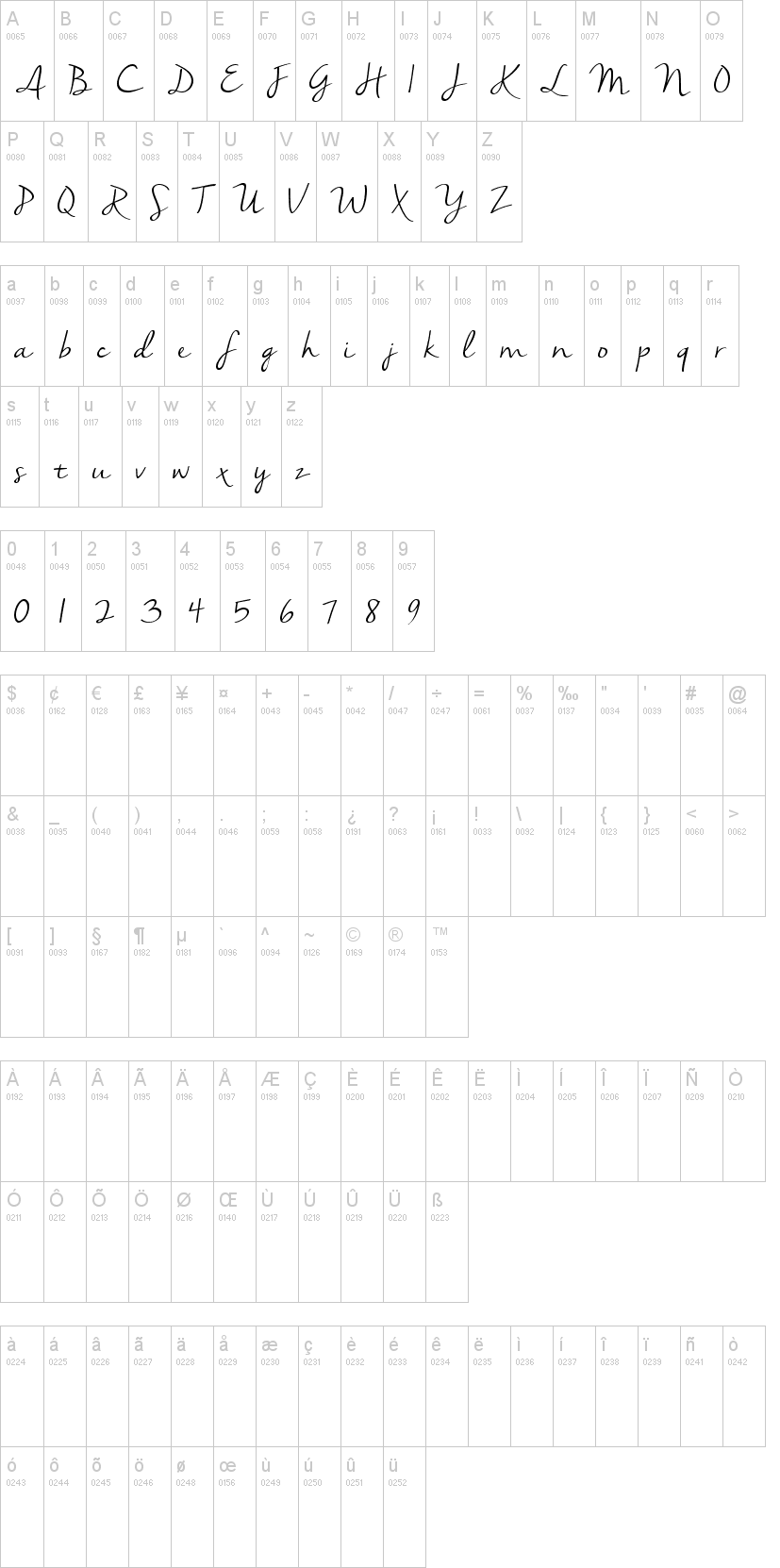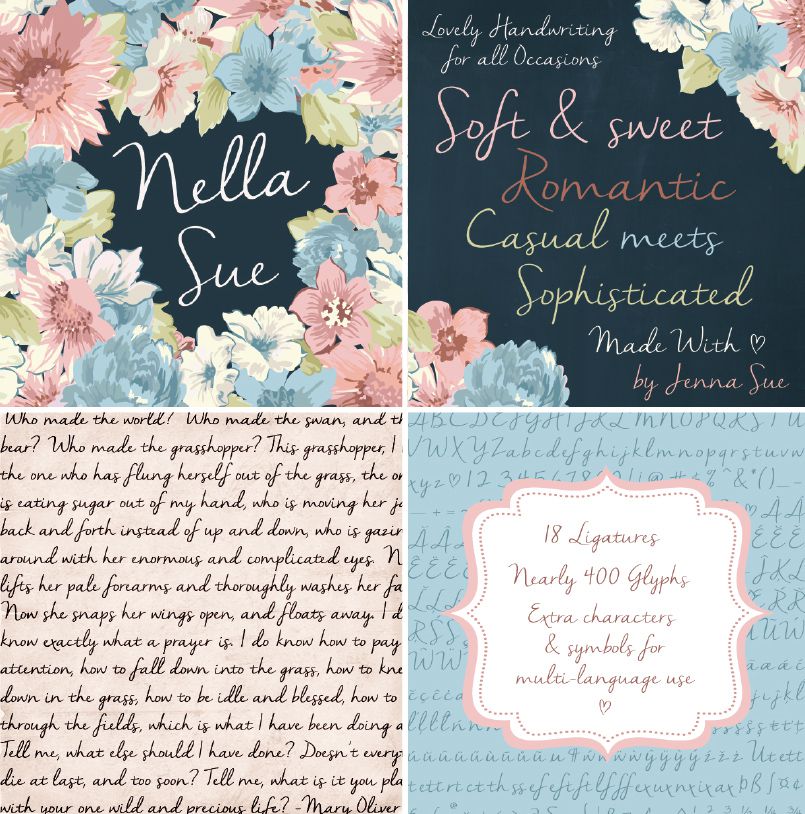
Шрифт Nella Sue
Nella Sue: A soft & sweet handwritten typeface perfect for all occasions.
The full version includes nearly 400 glyphs with a full set of accented characters, symbols and ligatures.